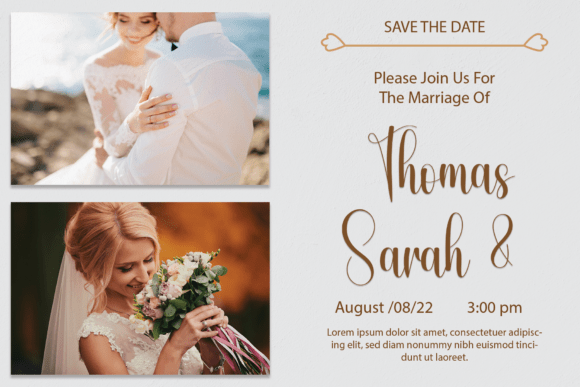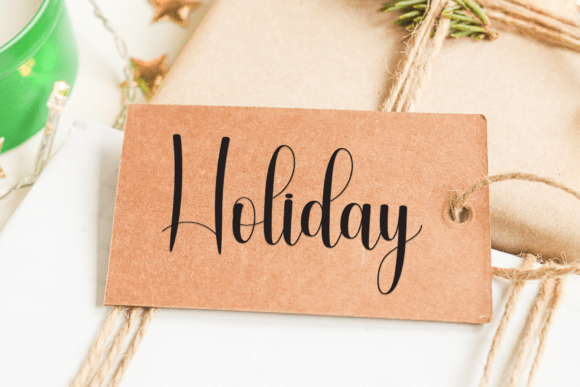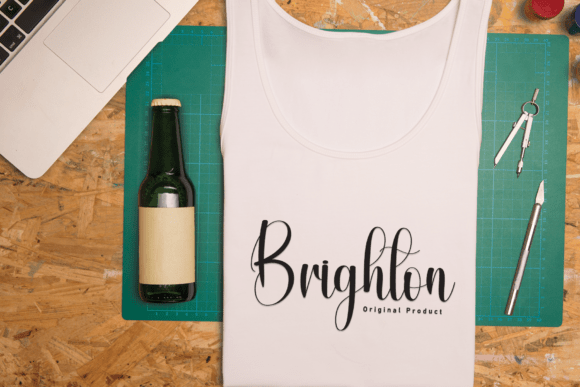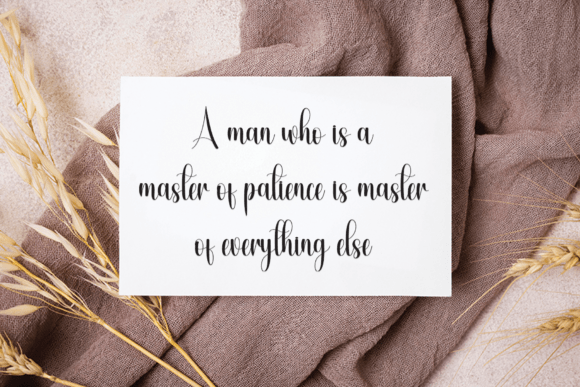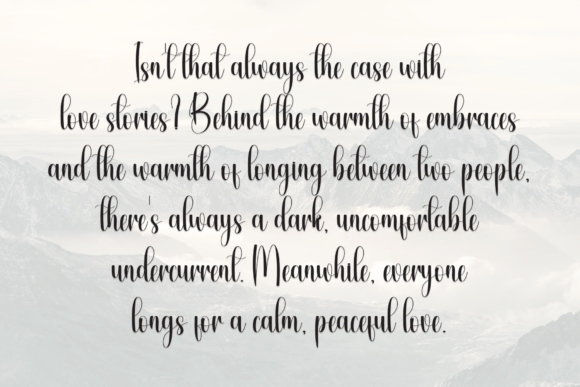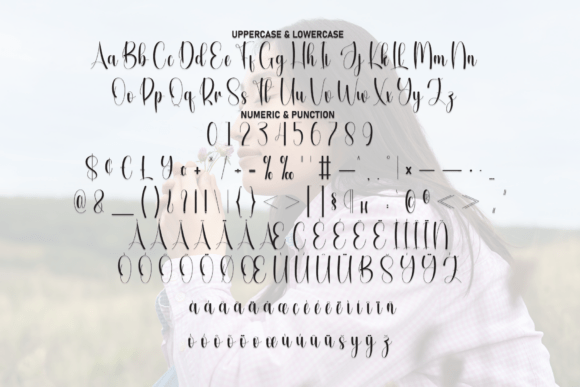
Introducing Breathine Font: Elevate Your Designs with Elegance and Sophistication
In the world of typography, a well-crafted font can make all the difference in elevating a design from ordinary to extraordinary. For designers and crafters seeking to add a touch of sophistication and artisanal charm to their creative projects, Breathine Font is an exceptional choice. This beautifully designed script font is characterized by its fluid, handwritten aesthetic, making it perfect for a wide range of applications, from lifestyle brand identities to elegant digital interfaces.
The Distinctive Features of Breathine Font
Breathine Font boasts a range of distinctive features that set it apart from other script fonts. Its vertically elongated letterforms, consistent monolinear weight, and smooth character joins create a sense of fluidity and movement, evoking the feeling of hand-sculpted artistry. The tall ascenders and rhythmic terminal flourishes add a touch of elegance, imbuing the font with a sense of sophistication and refinement.
Design Applications for Breathine Font
Breathine Font is an incredibly versatile typeface, suitable for a wide range of design applications. Some of the most effective uses for this font include:
- Lifestyle Brand Identities: Breathine Font’s elegant, artisanal aesthetic makes it an excellent choice for lifestyle brands seeking to establish a sophisticated and refined visual identity.
- Boutique Product Packaging: The font’s fluid, handwritten style adds a touch of luxury and exclusivity to product packaging, making it perfect for high-end boutiques and specialty brands.
- Elegant Social Media Headers: Breathine Font’s refined aesthetic makes it an excellent choice for social media headers, helping to establish a strong brand presence and elevate online engagement.
- Sophisticated Digital Interface Titles: The font’s clear, legible design makes it suitable for use in digital interfaces, such as website headers, app titles, and more.
The Benefits of Using Breathine Font
By incorporating Breathine Font into your designs, you can enjoy a range of benefits, including:
- Enhanced Visual Appeal: Breathine Font’s elegant, refined aesthetic adds a touch of sophistication to any design, making it perfect for brands and designers seeking to elevate their visual identity.
- Improved Brand Recognition: The font’s unique, artisanal style helps to establish a strong brand presence, making it easier to build recognition and loyalty with your target audience.
- Increased Versatility: Breathine Font’s versatility makes it suitable for a wide range of design applications, allowing you to use it across multiple platforms and projects.
Tips for Using Breathine Font Effectively
To get the most out of Breathine Font, consider the following tips:
- Pair with Complementary Fonts: Combine Breathine Font with complementary fonts to create visual interest and hierarchy in your designs.
- Experiment with Color: Breathine Font’s elegant aesthetic is elevated by a range of colors, from rich jewel tones to soft pastels.
- Pay Attention to Spacing: Ensure that your text is properly spaced to maintain the font’s fluid, handwritten aesthetic.
Breathine Font is a sophisticated and fluid script font that offers a unique blend of elegance, refinement, and artisanal charm. With its versatile design and wide range of applications, this font is an exceptional asset for designers and crafters seeking to elevate their creative projects. Whether you’re looking to establish a strong brand identity, create luxurious product packaging, or simply add a touch of sophistication to your digital designs, Breathine Font is an excellent choice.